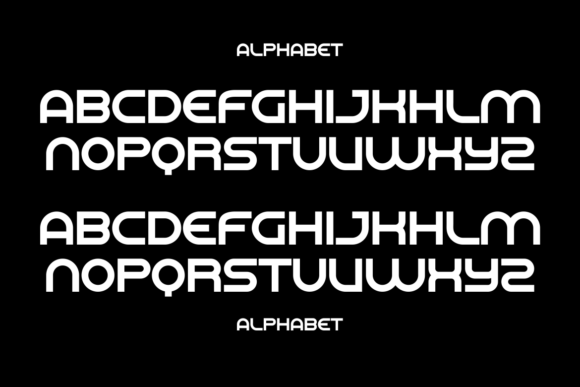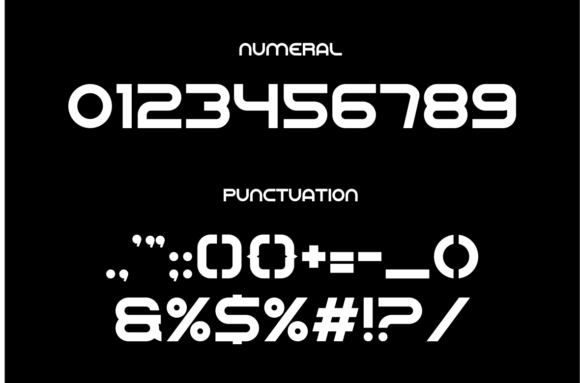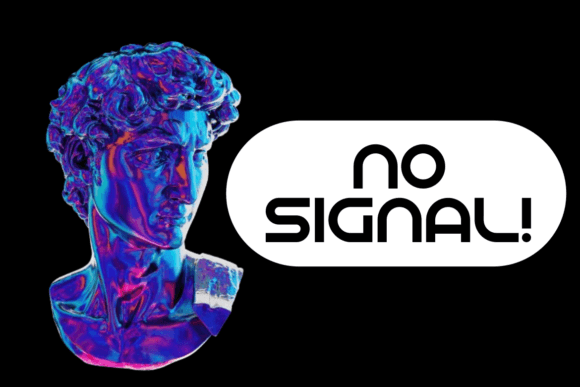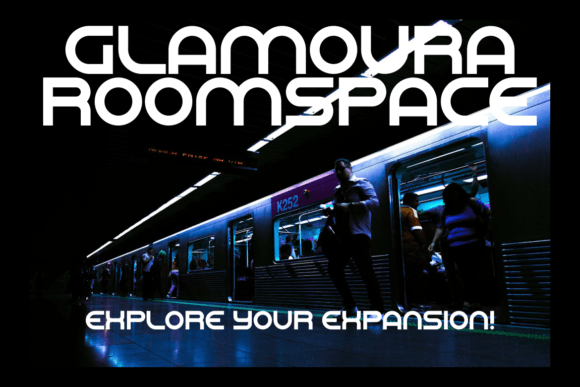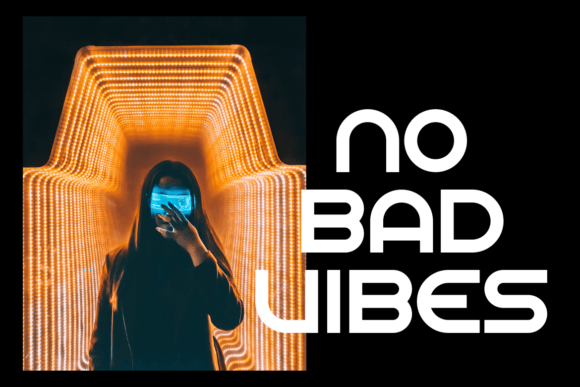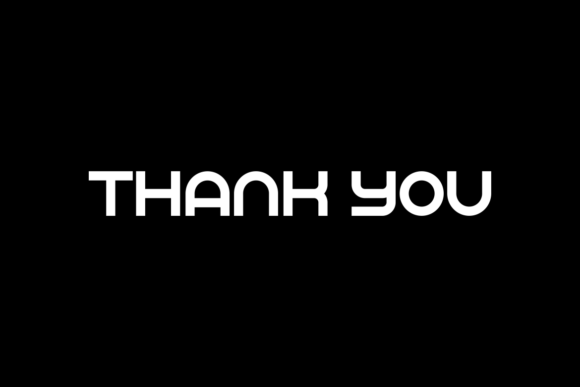
Introducing Glamoura Font: The Ultimate Choice for Modern Designers
In the world of typography, fonts play a crucial role in conveying the tone and aesthetic of a design. For designers and crafters looking for a bold and futuristic typeface, **GLAMOURA** is an excellent choice. This thick typeface is specifically designed with modern letter shapes, making it perfect for creating a concise and stylish look, reminiscent of film poster production credits.
The Features of Glamoura Font
**GLAMOURA** boasts a range of features that make it an attractive option for designers. Some of its key characteristics include:
- Thick and Bold: The font’s thick strokes give it a sturdy and robust appearance, making it ideal for headlines, titles, and emphasis.
- Futuristic Letter Shapes: The letterforms in **GLAMOURA** have a distinctly futuristic feel, with clean lines and geometric shapes that evoke a sense of modernity.
- Concise and Readable: Despite its bold nature, **GLAMOURA** remains highly readable, even at smaller sizes, making it suitable for a wide range of design applications.
Uses of Glamoura Font
The versatility of **GLAMOURA** makes it suitable for various design projects, including:
- Film and Movie Posters: The font’s cinematic feel makes it an excellent choice for creating production credits, titles, and taglines for film and movie posters.
- Branding and Advertising: **GLAMOURA** can add a touch of sophistication and modernity to brand identities, advertisements, and marketing materials.
- Graphic Design: The font’s bold and futuristic aesthetic makes it perfect for graphic design projects, such as brochures, flyers, and posters.
- Crafting and DIY Projects: **GLAMOURA** can also be used in crafting and DIY projects, such as making signs, banners, and other decorative items.
Tips for Using Glamoura Font
To get the most out of **GLAMOURA**, consider the following tips:
- Pair with Contrasting Fonts: Combine **GLAMOURA** with contrasting fonts to create visual interest and hierarchy in your design.
- Experiment with Colors: The font’s bold nature makes it suitable for a wide range of colors and color schemes.
- Use for Emphasis: **GLAMOURA** is perfect for drawing attention to specific elements in your design, such as headlines or calls-to-action.
In conclusion, **GLAMOURA** is a versatile and stylish font that can elevate a wide range of design projects. Its bold and futuristic aesthetic makes it perfect for creating a concise and modern look, reminiscent of film poster production credits. With its thick strokes, clean lines, and geometric shapes, **GLAMOURA** is an excellent choice for designers and crafters looking to add a touch of sophistication and modernity to their work.